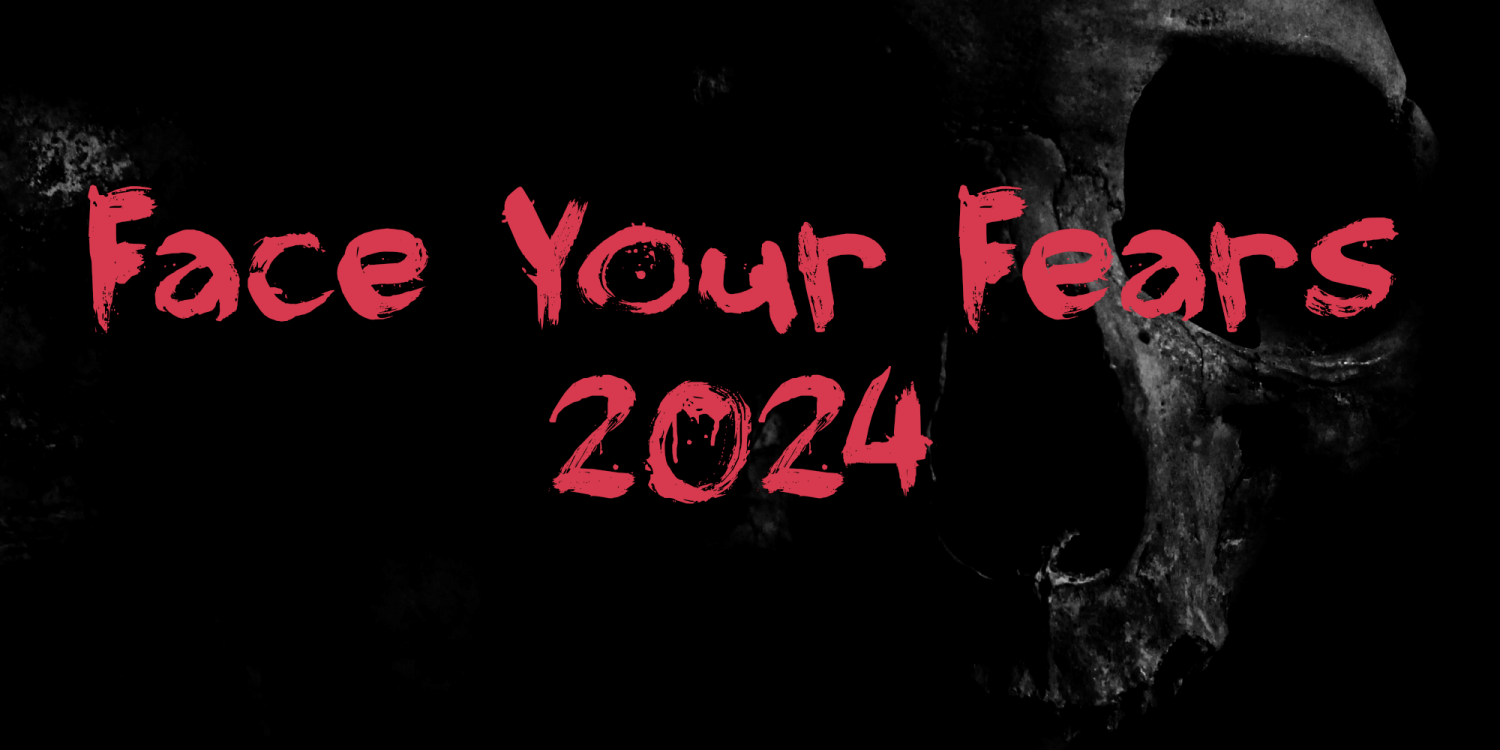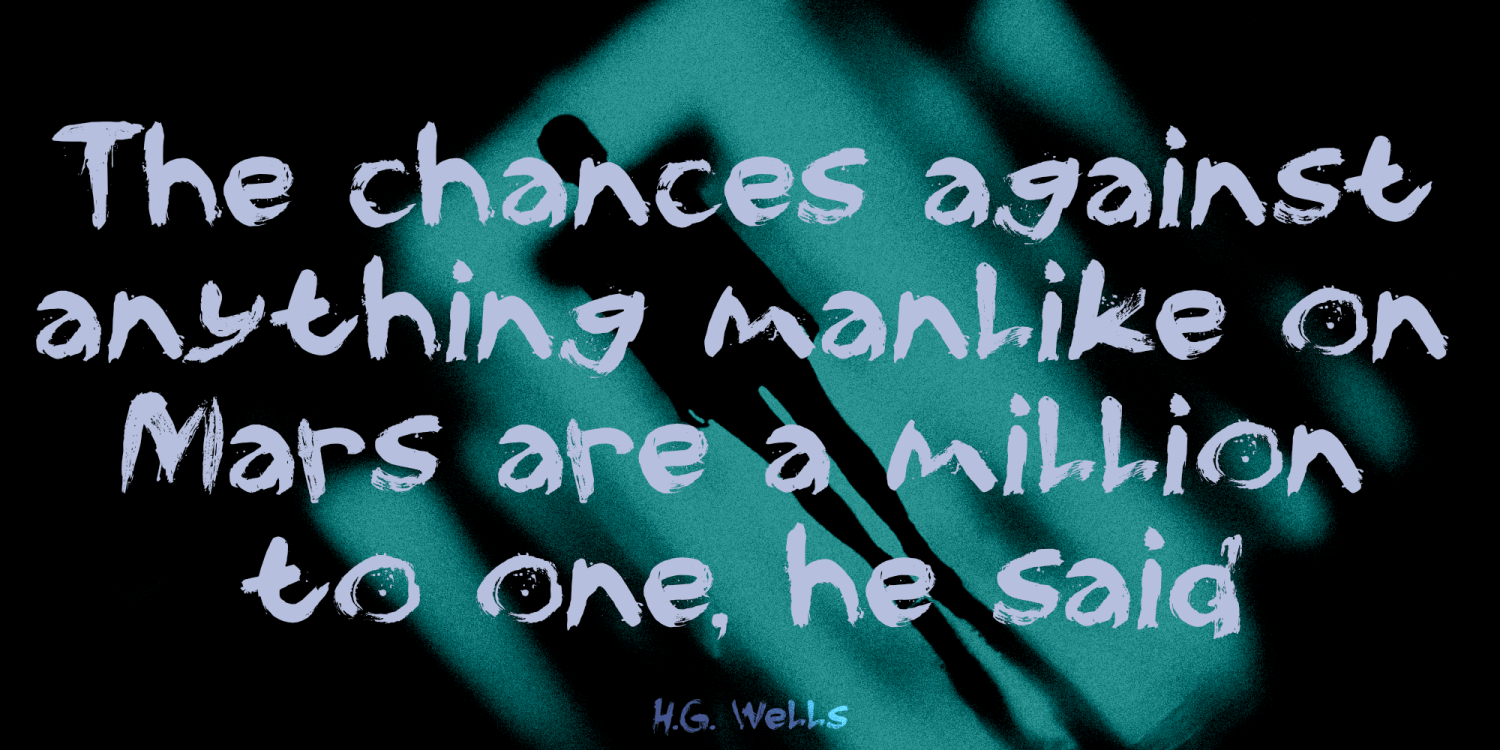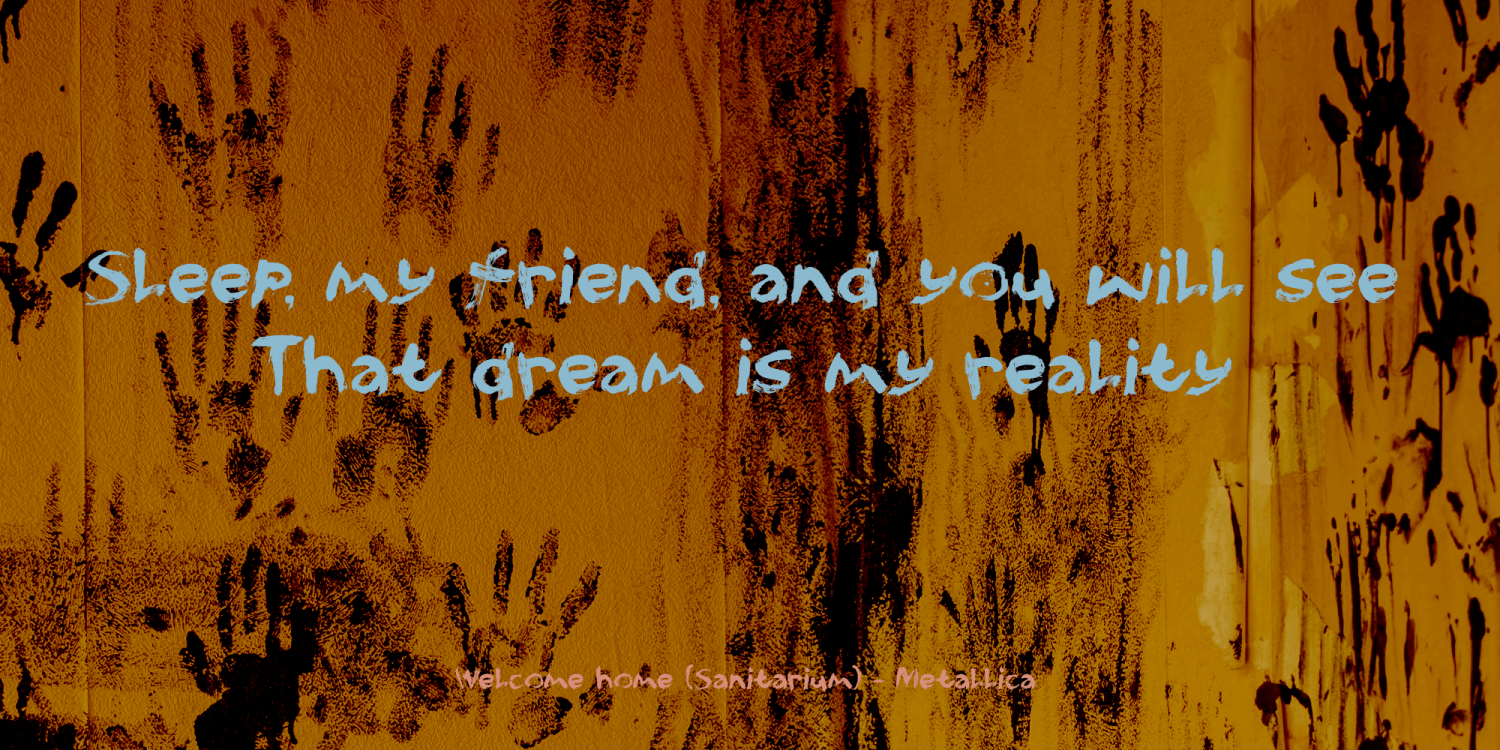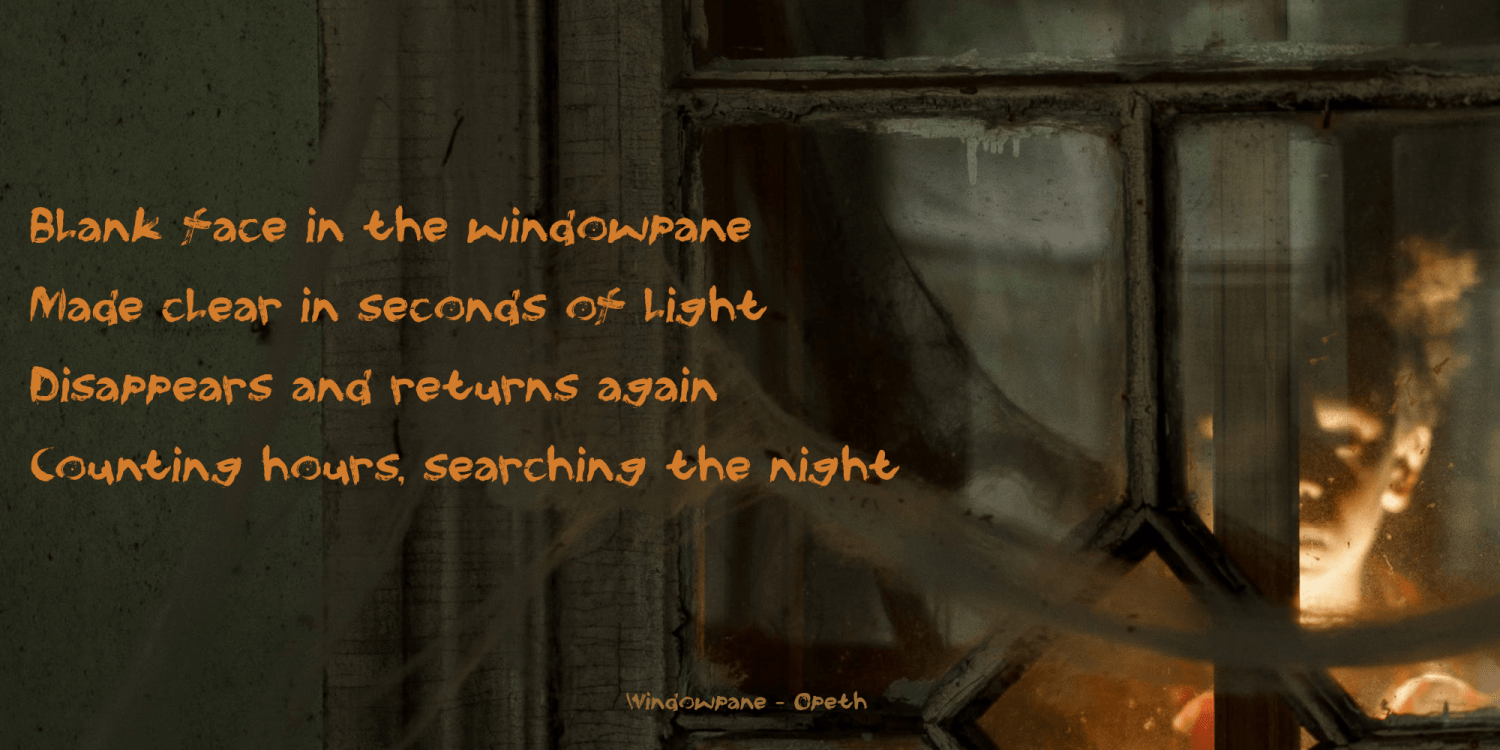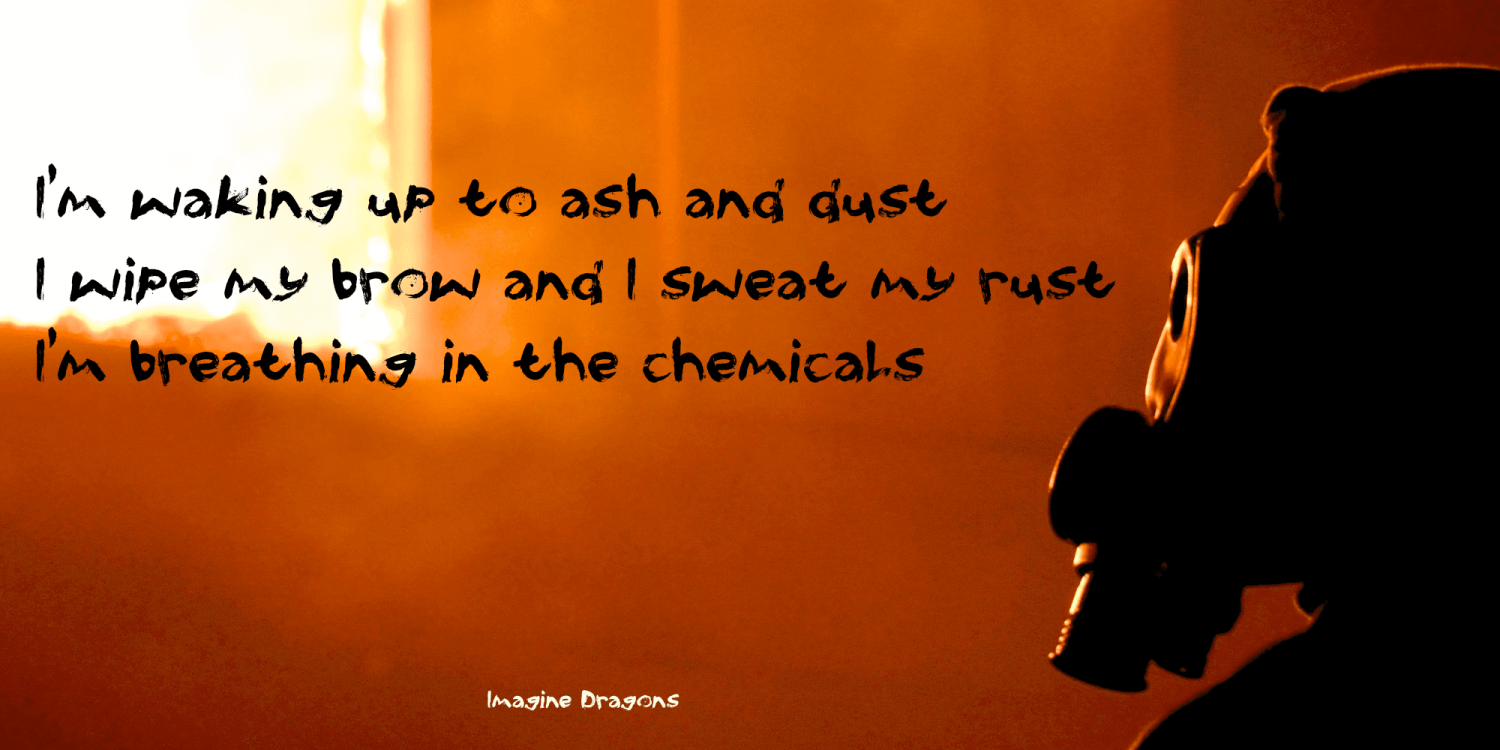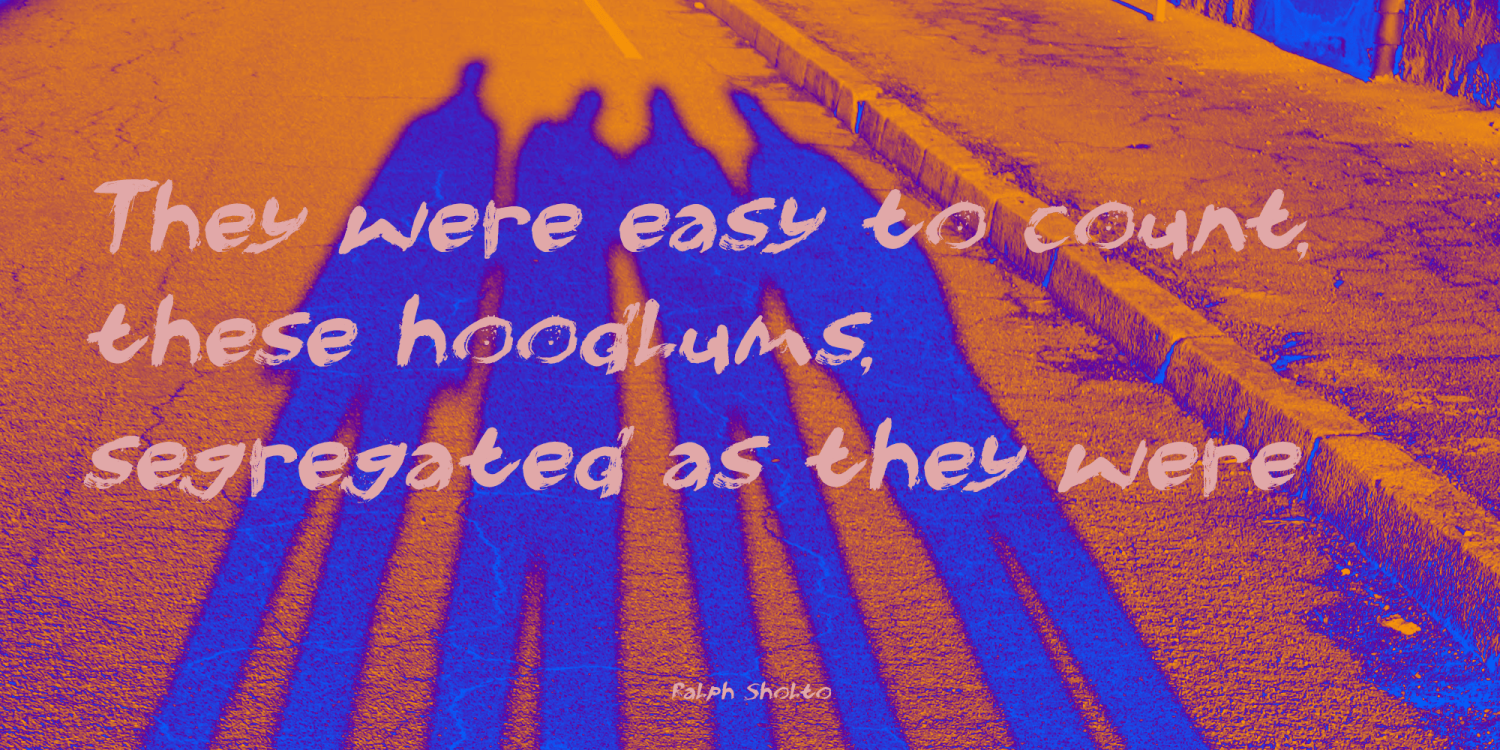
Face Your Fears 2024
Back in 2011 I released a scary, all caps brush font called Face Your Fears. It was quite a hit for a while and it seemed to be the font of choice for rap artists! Ever since I released Face Your Fears, people have been asking me whether I could make a version with a lower case. So, 13 years onward, I decided to take up my brushes and paint and do just that!
Face Your Fears 2024 uses the same caps as the original font, but I have altered them slightly to fit the new set of lower case glyphs. I have added extensive language support and some missing glyphs as well.
Face Your Fears 2024 by Hanoded